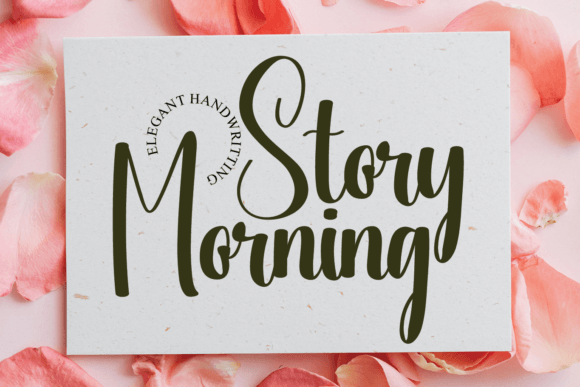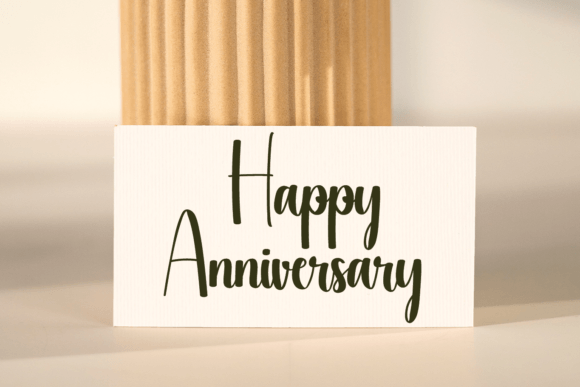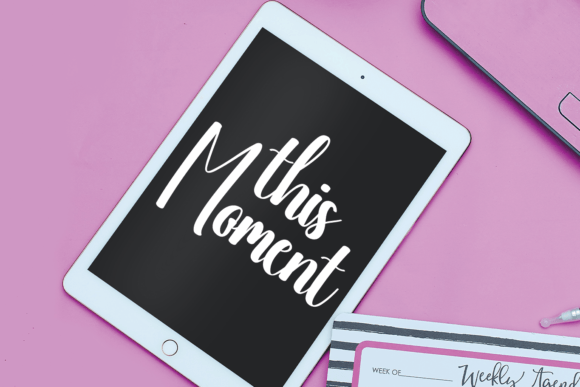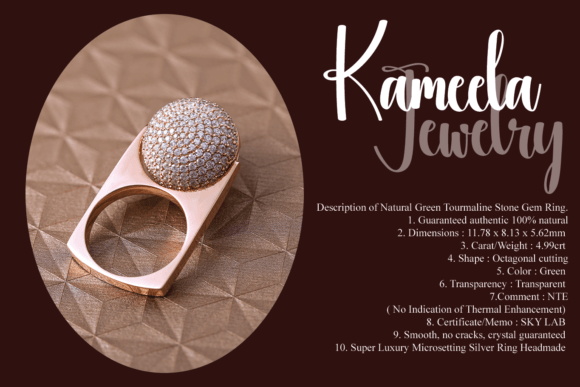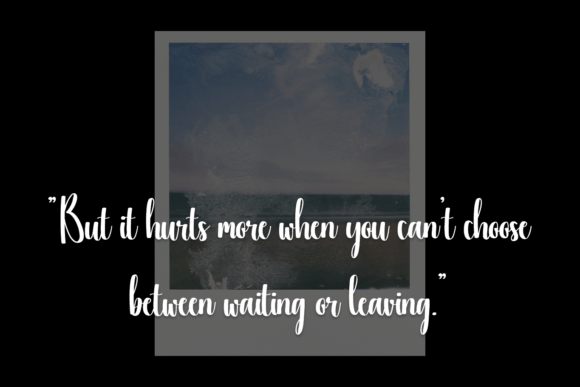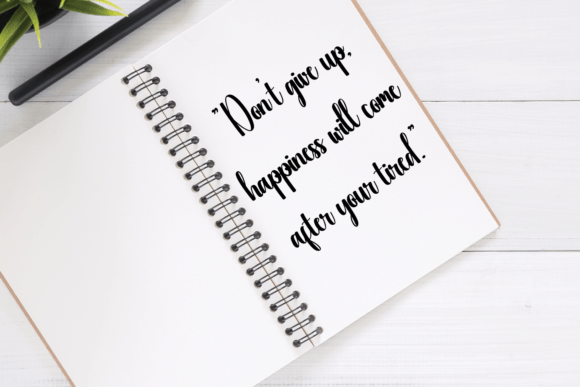
Morning Story Font
About Morning Story Font
Morning Story is a chic and refined script font that exudes an air of sophistication and elegance. With its stylish alternates and ligatures, this font emerges as the perfect complement for a diverse range of creative projects. By incorporating Morning Story into your designs, you’ll witness how it breathes life into them, adding a touch of charm and uniqueness.
The font’s chic aesthetic is a testament to its meticulous design, making it an excellent choice for those who seek to infuse their projects with a sense of timeless style. Whether you’re working on branding materials, invitations, social media graphics, or any other creative endeavor, Morning Story proves to be a versatile and dynamic font that adapts effortlessly to various contexts.
Morning Story’s alternates and ligatures contribute to its refined appeal, allowing you to create visually interesting and harmonious designs. This versatility ensures that the font aligns with your creative vision, enhancing the overall aesthetics of your projects.
As you add Morning Story to your design toolkit, anticipate the transformation of your creations. Watch how it elevates your work, turning each project into a visual masterpiece. Let Morning Story be the stylish and sophisticated element that brings your creative ideas to life, leaving a lasting impression on your audience.